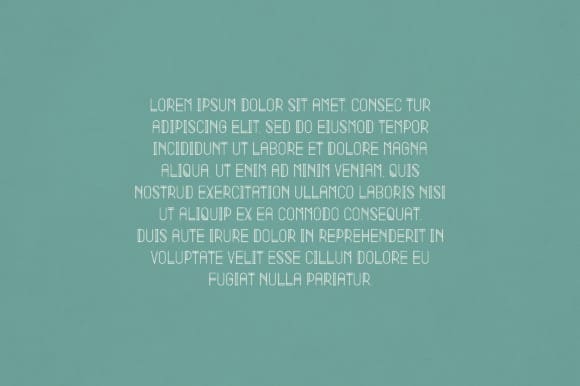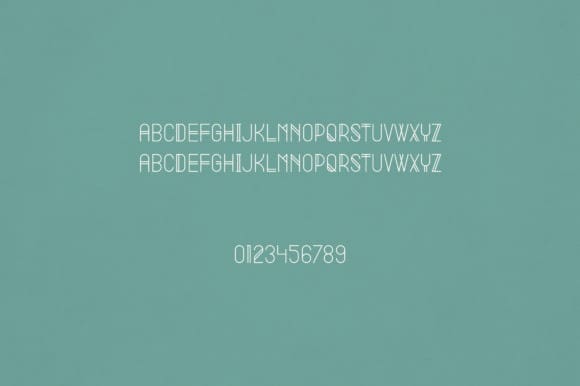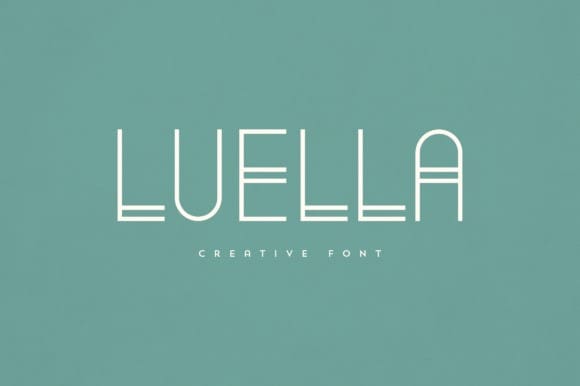
Luella Font
Luella Font is an elegant and versatile display font that will make your typography truly unique! It will enchant every logo, branding, headline, or plain text!